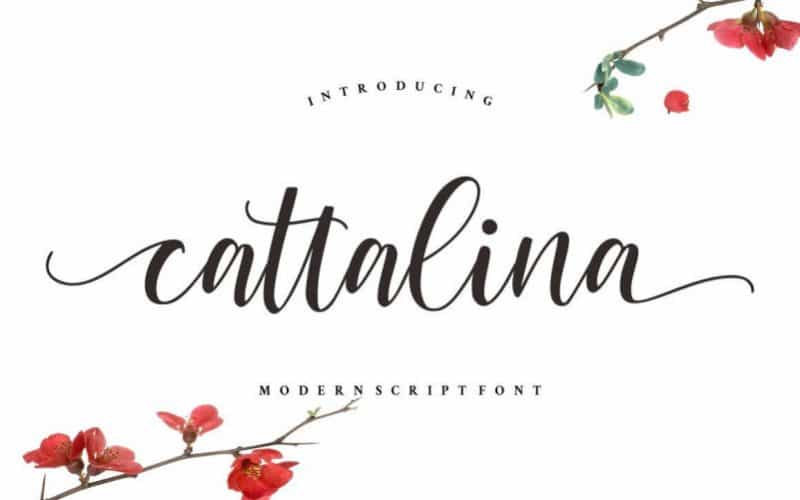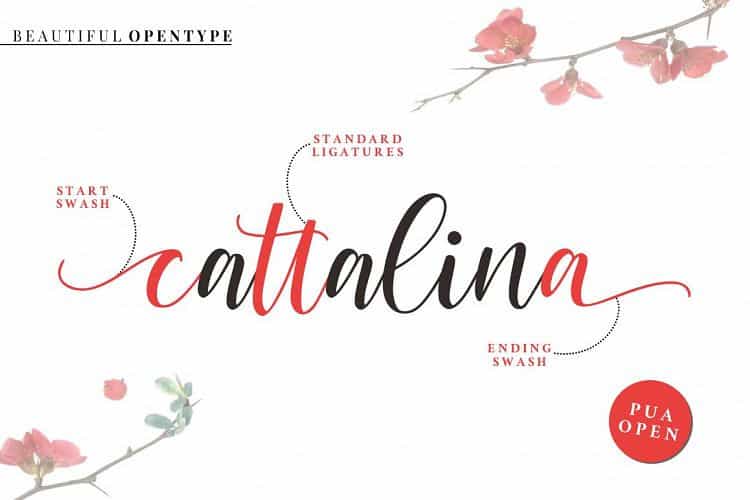
Cattalina a luxury font is manufacture a natural and modern handwritten font. Ideal for logo, invitation, business cards, wedding designs, social media or any advertisements, product packaging, product designs, label, photography, watermark, any special events or anything.